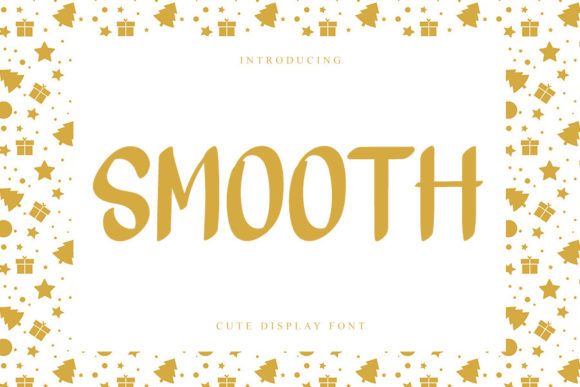
About Smooth Font
Smooth is a sleek and sophisticated handwritten font that seamlessly blends contemporary aesthetics with the timeless elegance of classic calligraphy. Its balanced and varied design makes it a versatile choice that can elevate the beauty of a wide range of projects.
When it comes to branding and logo design, Smooth’s stylish and refined letterforms can create a strong and memorable visual identity. Its contemporary yet classic look adds a touch of professionalism and sophistication to your brand, helping you leave a lasting impression on your audience.
In printed materials like brochures, flyers, and posters, Smooth’s impeccable form and clean lines make for easy readability and a polished appearance. It can bring a sense of modernity and elegance to your promotional materials, ensuring that your message is communicated effectively.
Smooth’s contemporary atmosphere also makes it a great fit for digital designs. Whether you’re designing website headers, social media graphics, or digital advertisements, the font’s stylish and streamlined look can enhance the visual appeal of your online presence.
For special occasions such as wedding invitations, event announcements, and greeting cards, Smooth’s timeless calligraphic influence adds a touch of romance and sophistication. Its impeccable form and fluid strokes create an elegant and luxurious feel that sets the tone for memorable celebrations.
Smooth’s versatility extends to various creative projects, such as book covers, packaging designs, and product labels. Its modern yet classic style can add a touch of refinement to your creations, making them stand out on the shelves and capturing the attention of your target audience.
Whether used in bold headlines or subtle captions, Smooth’s well-crafted design ensures that your text maintains its legibility and visual appeal across different contexts. Its varied strokes and clean lines contribute to a harmonious and aesthetically pleasing typography.
In summary, Smooth is a stylish handwritten font that effortlessly combines contemporary aesthetics with timeless calligraphic influences. Its impeccable form and versatility make it a valuable asset for branding, printed materials, digital designs, special occasions, and a wide range of creative projects.